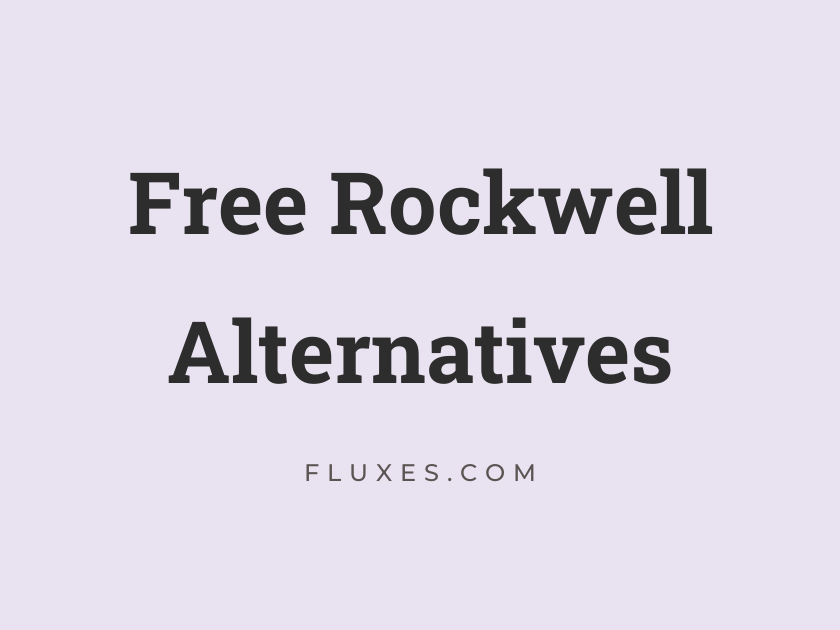
14 Best Free Fonts Alternatives to Rockwell
Rockwell has been a workhorse of graphic design since Monotype released it in 1934: a geometric slab serif with thick, unbracketed strokes that reads as sturdy, industrial, and confident at any size. It shows up on posters, sportswear branding, engineering reports, and old typewriter-adjacent packaging, but it is not free, which sends a lot of designers looking for a free slab serif font that captures the same weight and personality without a license fee. Google Fonts has a genuinely strong bench of slab serifs, some closer to Rockwell’s geometric squareness and others that lean warmer or more humanist, so the options below focus on families that actually share its DNA rather than just any serif with a block foot.
1. Roboto Slab
Built tough, engineered for every headline
Roboto Slab is probably the closest mainstream match to Rockwell’s geometric backbone, sharing that same confident, squared-off rhythm while carrying the extended weight range and language support of the wider Roboto family. It scales cleanly from body copy to display sizes, which makes it a dependable pick for anyone who needs one slab family to do several jobs across a site.
2. Arvo
Sturdy slabs for signage and headlines
Arvo has been a go-to Rockwell substitute for years, and for good reason: its geometric structure, even stroke weight, and squared serifs sit remarkably close to the original. It is especially good in bold for headlines and buttons, though at small text sizes it can feel a touch heavy compared to a true text serif.
3. Zilla Slab
Precision-built type for modern products
Designed by Mozilla for its own documentation and interfaces, Zilla Slab brings a slightly more contemporary, tech-forward feel than Rockwell while keeping the slab’s structural confidence. It offers enough weights to build a full type system, from long-form reading to bold display treatment, and pairs comfortably with a plain grotesque for UI work.
4. Bitter
Set in stone, built for long reading
Where Rockwell is blunt and mechanical, Bitter softens the slab serif idea just enough to be comfortable in paragraphs. It was built as a screen-friendly text face, so it holds up well in articles, reports, and editorial layouts where Rockwell itself would feel too shouty.
5. Rokkitt
Bold ideas need a bold frame
Rokkitt
Rokkitt leans into the geometric, almost architectural side of the slab serif category, with rounded joins on some letters that give it a friendlier edge than Rockwell’s strict rigidity. It works nicely as a display face for headlines and pull quotes, especially in branding that wants warmth alongside strength.
6. Aleo
Reliable type for reports and signage
Aleo
Aleo was drawn as a companion to a humanist sans, and that heritage shows in its calm, well-mannered slab serifs that read easily in body text. It is a safe, versatile substitute when a project needs a Rockwell-like structure but without quite so much visual weight on the page.
7. Crete Round
Soft edges, solid industrial character
Crete Round
Crete Round trades Rockwell’s sharp corners for gently rounded slab terminals, giving it a friendlier, more approachable voice while keeping the same geometric bones. It suits editorial headlines, packaging, and branding that wants sturdiness without feeling cold or mechanical.
8. Alfa Slab One
Heavy-duty lettering for bold statements
This is a poster face, not a body text one: Alfa Slab One is enormous, dense, and unapologetically loud, closer to Rockwell’s boldest display cuts than anything meant for paragraphs. Reserve it for short headlines, logotypes, or badges where maximum visual weight is the point.
9. Bevan
Rugged type for outdoor brands
Bevan has a slightly rounded, chunky build that recalls vintage western signage and stamped metal type more than Rockwell’s clean geometry, but it shares that same thick, confident presence. It is a strong choice for craft, outdoor, or heritage branding that wants a slab serif with a bit more character.
10. Coustard
Solid lettering for retro branding
Coustard
Coustard is a squat, heavyweight slab with generous curves, giving it a stamped, almost carved feel that works well in logotypes and short display lines. It is not built for reading paragraphs, but as an accent face alongside a plainer slab or sans, it adds personality fast.
11. Kameron
Dependable slabs for structured layouts
Kameron
Kameron keeps things straightforward: even weight distribution, squared serifs, and a slightly condensed rhythm that echoes Rockwell’s utilitarian streak. It is a solid, unfussy option for headers and navigation on sites that want a slab serif without any decorative flourish.
12. Sanchez
Warm, grounded type for storytelling
Sanchez
Sanchez brings a touch of warmth to the slab serif form, with slightly humanist curves that make it feel less mechanical than Rockwell and more suited to narrative or editorial contexts. It reads comfortably at text sizes, which broadens its use beyond headlines into full articles.
Rockwell’s appeal has always been its blend of geometric confidence and industrial warmth, and the free alternatives above cover that same range, from strict structural slabs to friendlier, rounder cousins. Testing a few side by side in an actual layout is the fastest way to find the one that matches the tone of the project at hand.